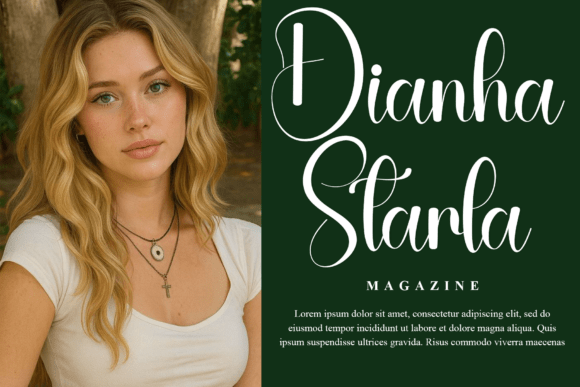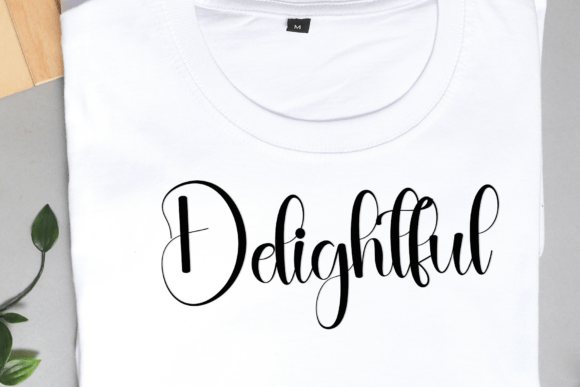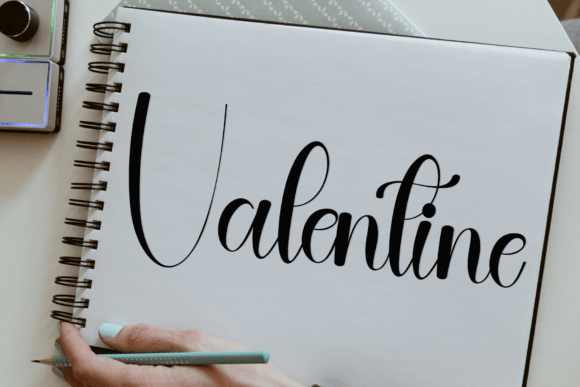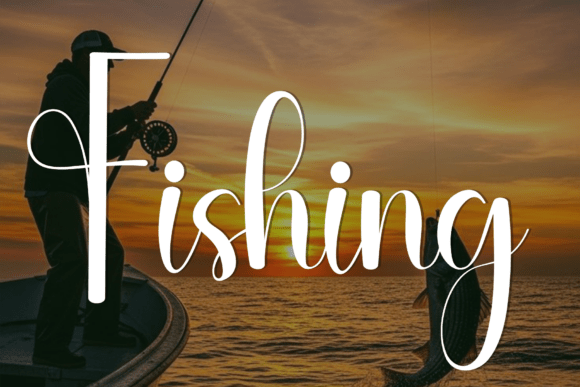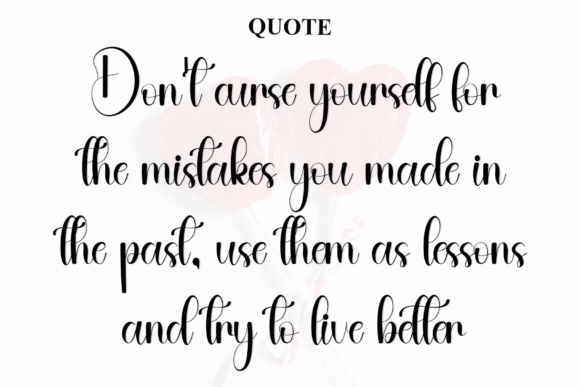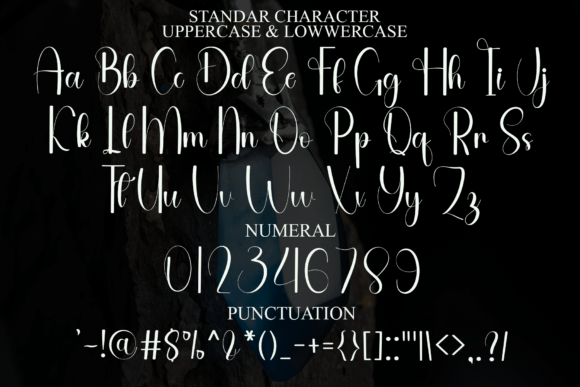
The Magic of the Holiday Season in Type
As I sit at my desk, surrounded by twinkling lights and festive decorations, I find myself inspired by the whimsy of the holiday season. The sound of jingling bells and the smell of freshly baked cookies fill the air, and I know it’s time to get creative. This is the moment when the perfect font can make all the difference – and that’s where the Ballpoint Santa Font comes in.
This delightful typeface is the perfect companion for your holiday projects, adding a touch of enchantment to your designs. With its decorative elements and whimsical flair, the Ballpoint Santa Font brings a cheerful and nostalgic ambiance to your words. Whether you’re creating greeting cards, gift tags, or holiday-themed projects, this font is sure to bring a smile to your face and a twinkle to your designs.
Key Features of Ballpoint Santa Font
- Unique Characteristics: Ballpoint Santa Font features a unique, hand-drawn style with bold lines and expressive letterforms, reminiscent of traditional ballpoint pen illustrations.
- Font Style: The font is available in a single style, with a bold and playful feel that is perfect for festive and holiday-themed designs.
Review of Ballpoint Santa Font
The Ballpoint Santa Font has a certain charm to it. ✨ It captures the whimsy of a child’s drawing and the nostalgia of traditional holiday decorations. The font’s casual, handwritten feel is reminiscent of a loved one’s personalized holiday card. ✨ The bold lines and playful flourishes evoke a sense of joy and wonder, making it perfect for titles and headings.
- The font’s unique aesthetic is sure to stand out in a crowd.
- It’s versatile and can be used for a variety of holiday-themed projects.
- The bold lines and playful flourishes add a sense of whimsy and fun.
- ⚠️ The font may not be suitable for body text due to its casual, handwritten feel.
- ⚠️ The bold lines may make the font difficult to read at small sizes.
- ⚠️ The font’s aesthetic may not appeal to everyone, particularly those who prefer more traditional or formal holiday fonts.
The Ballpoint Santa Font is a fun and unique addition to any holiday design project. While it may have some limitations, its charm and playfulness make it a great choice for titles, headings, and other design elements where a sense of whimsy is desired.
Practical Application Guide for Ballpoint Santa Font
Some tips for getting the most out of the Ballpoint Santa Font include:
– Using it for festive holiday designs, such as Christmas cards or decorations.
– Combining it with other fonts for a unique and playful look.
– Adjusting the font size and color to create a bold and eye-catching effect.